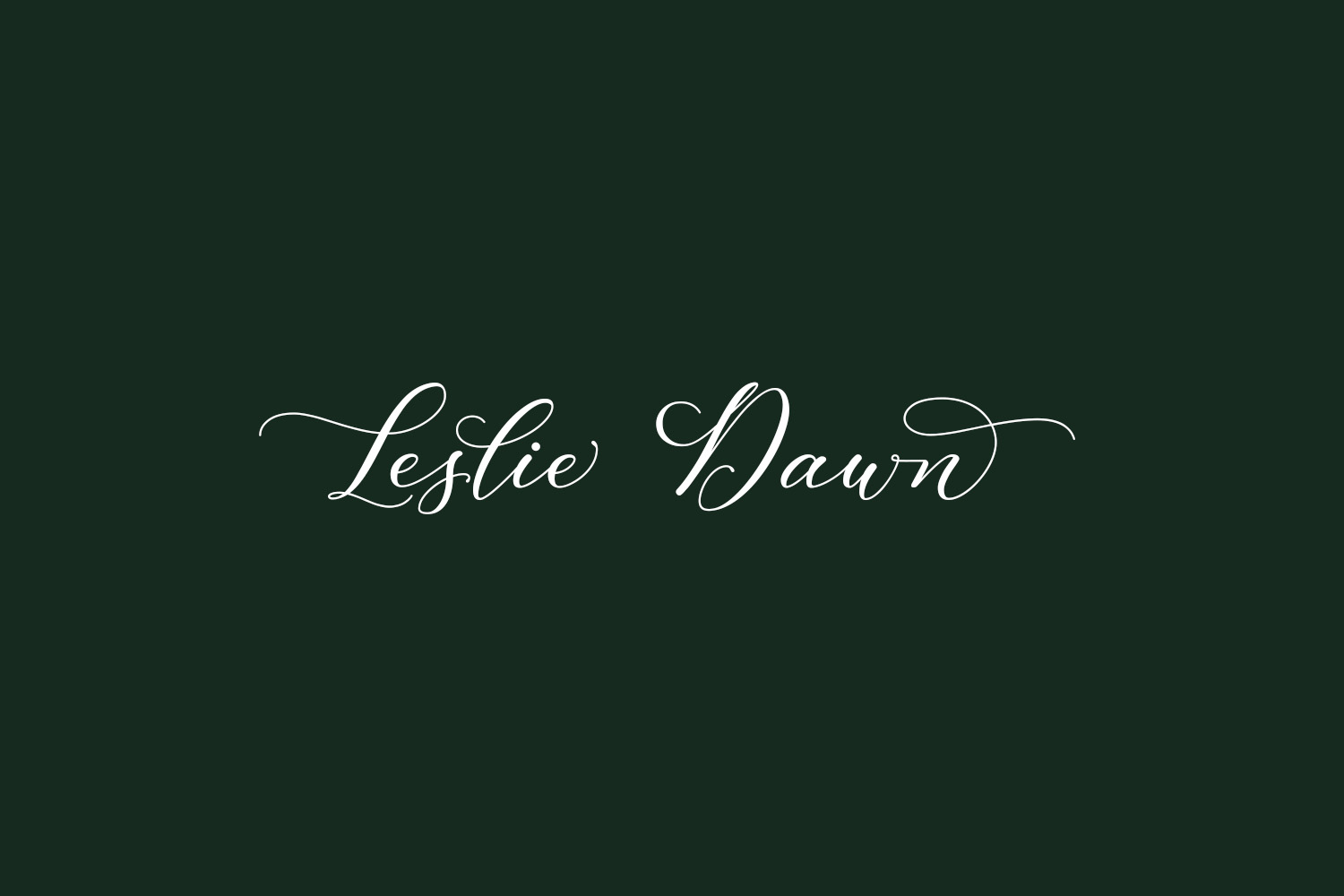
Leslie Dawn Free Font is the perfect font for a huge variety of crafting projects. Get inspired by its stunning alternates characters. Leslie Dawn Free Font was designed by Graphix Line Studio and is free for personal use only. Please purchase the full version for commercial use.
Designed by Graphix Line Studio